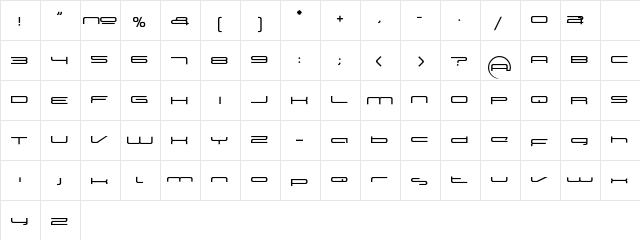
Neutronica Geometric Font Preview
Neutronica Geometric
Design Context for Neutronica Typeface
Neutronica offers clean, dependable letterforms without strong stylistic allegiance, making it a practical choice for designers who need flexibility.
Pro Tip: Pair Neutronica with a font of contrasting weight or personality to build a more expressive typographic hierarchy.